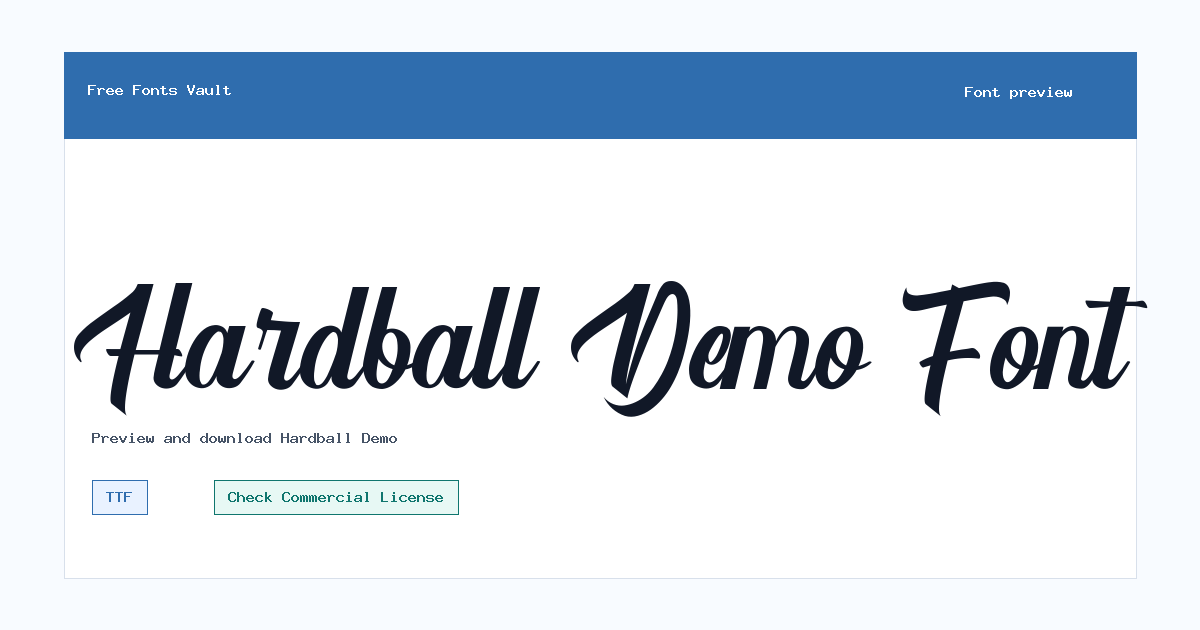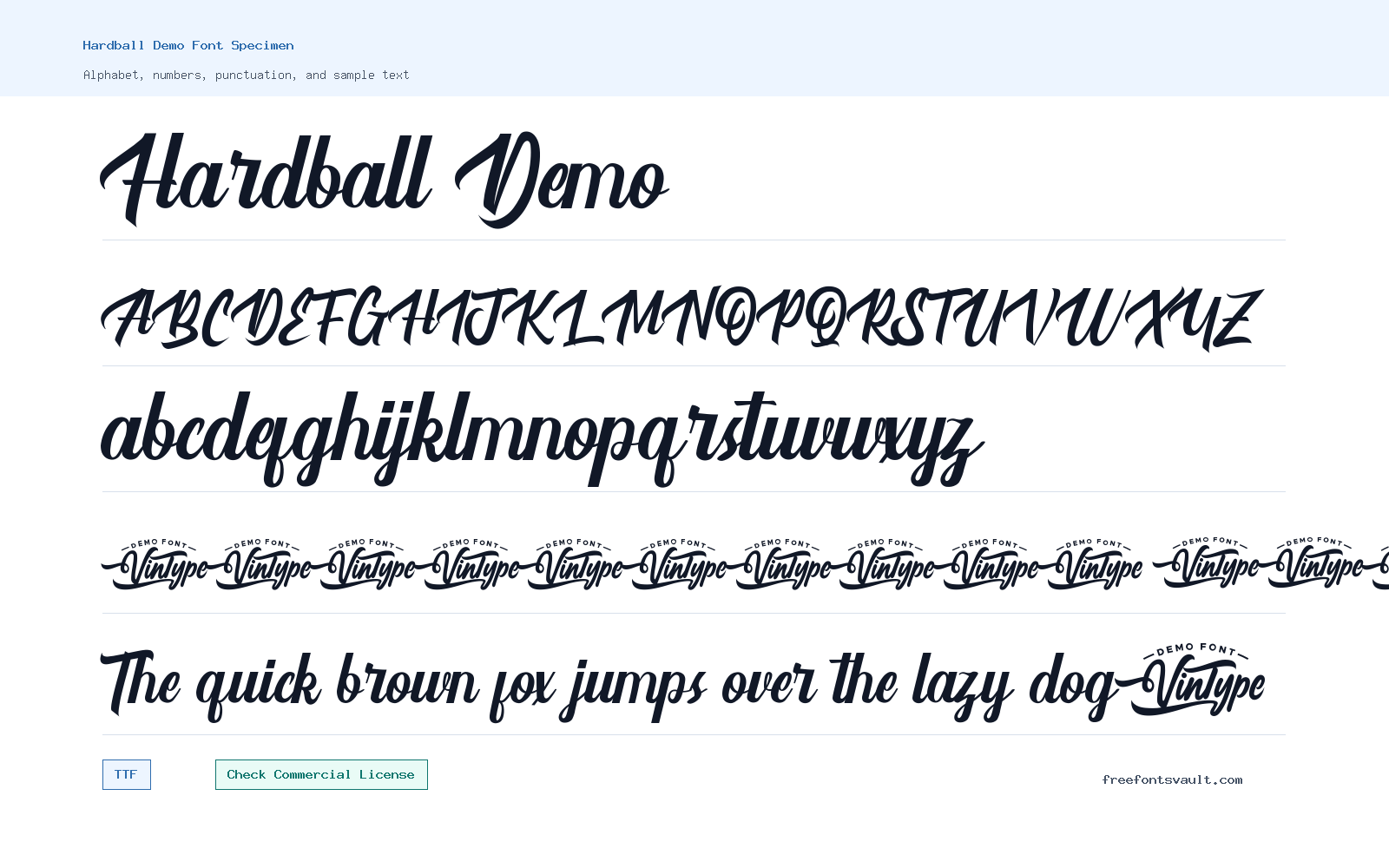
Hardball Demo
- Designer Widiyanti & Sarah SP
- Foundry VinType Studio
Hardball Demo font.
Hardball Demo is a TTF font family with a regular style for personal, non-commercial projects. Use the preview box to test your own words before downloading, especially if you plan to use it in a headline, poster, or social graphic.
About Hardball Demo
Hardball Demo comes as a single regular-weight font file in TTF format. Since only one style is included, it is best treated as a display choice rather than a full text family. Try it with short words, names, numbers, and punctuation to see how it handles the exact text you want to design.
For best results, test it at the size you plan to use. Display fonts can work well in titles, cover art, thumbnails, invitations, and personal graphics, but they may become harder to read in long paragraphs or small interface text. If you need body copy, pair it with a simple sans serif or serif font and let Hardball Demo handle the attention-grabbing line.
Hardball Demo is best approached as a personal-use display font for quick creative testing. It can help shape a title, name graphic, poster draft, or social image where the type style is part of the visual identity.
Because only one regular style is listed, the preview is important. Test uppercase, lowercase, numbers, and punctuation before designing around it, and make sure the spacing still feels natural with the exact words you plan to use.
- Regular style with normal weight
- Personal posters, invitations, and social media graphics
- Short headings, names, titles, and preview text
Hardball Demo is credited to Widiyanti & Sarah SP, with VinType Studio listed as the foundry.
Does Hardball Demo include multiple weights?
Only one regular style is listed, with normal style and 400 weight.
Who designed Hardball Demo?
The font is credited to Widiyanti & Sarah SP, and VinType Studio is listed as the foundry.